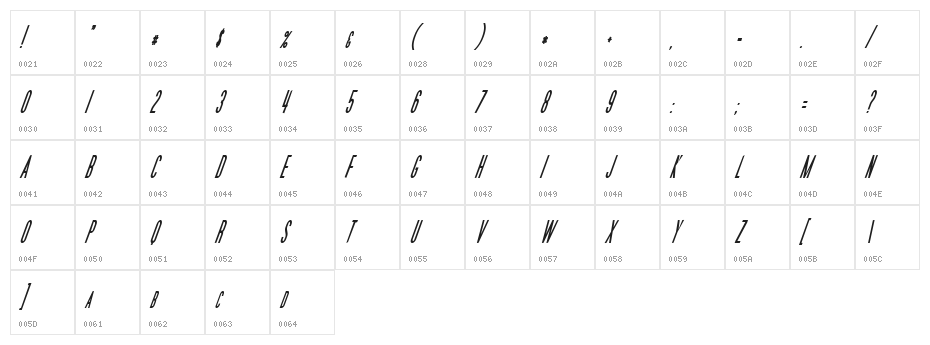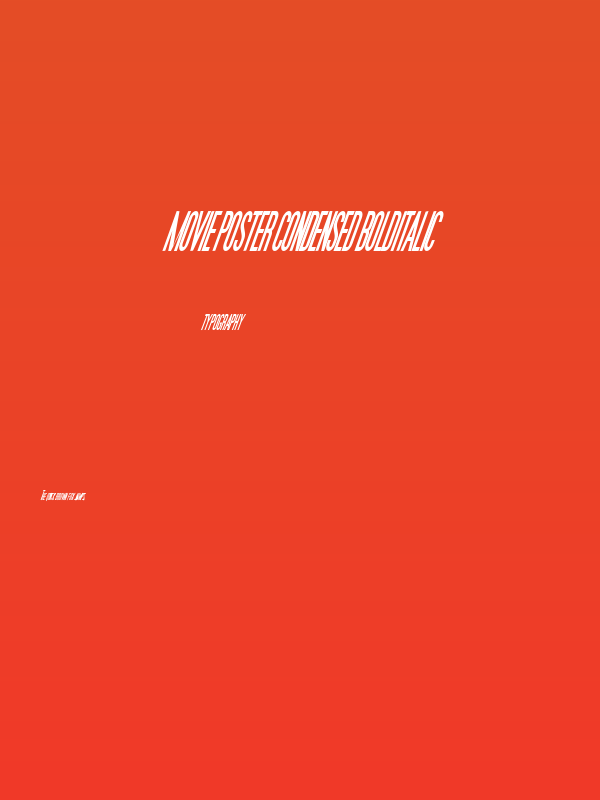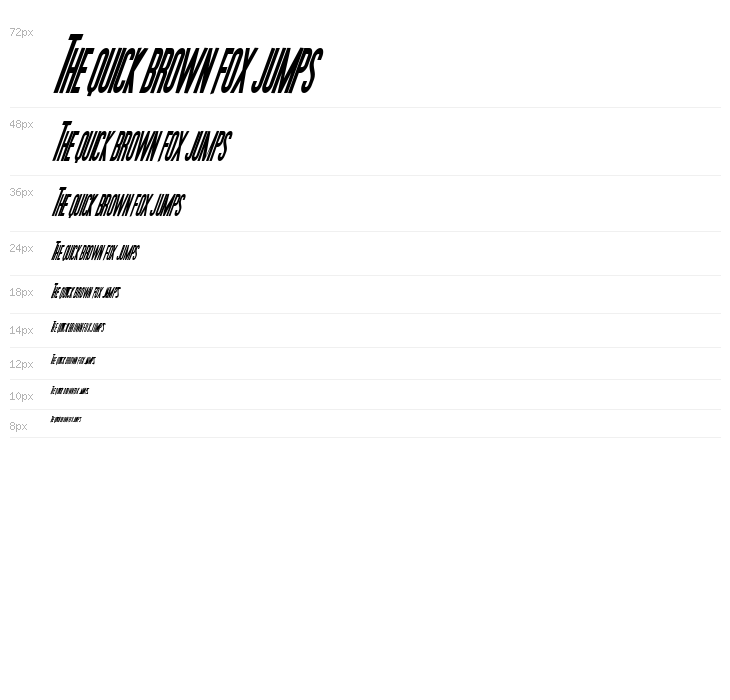
Movie Poster Condensed BoldItalic Font
Movie Poster Condensed BoldItalic Description
This font features a bold and italicized style with a condensed width, creating a striking and dynamic appearance. The characters are elongated and slanted, giving a sense of motion and urgency. The uppercase letters are particularly tall and narrow, while the lowercase letters maintain a consistent style. The numerals and special characters follow the same condensed and italicized design, ensuring uniformity across all text elements. The font's high contrast between thick and thin strokes adds to its boldness, making it ideal for attention-grabbing headlines or titles.
| Proposed Projects | Ideal for movie posters, advertising campaigns, and any project requiring impactful and dynamic text. |